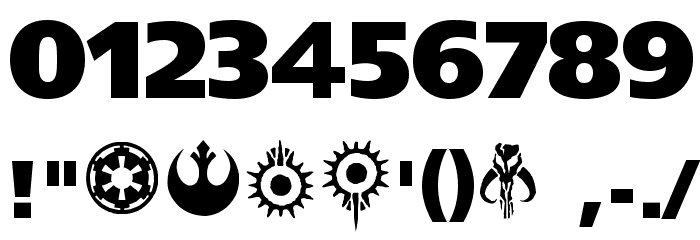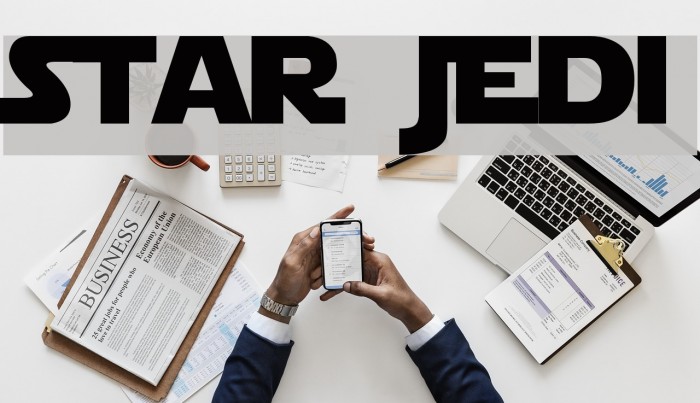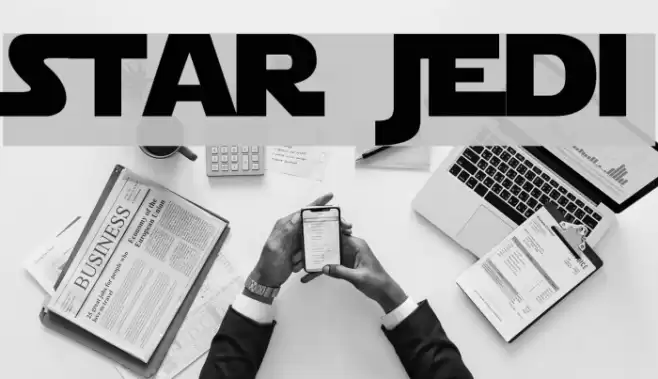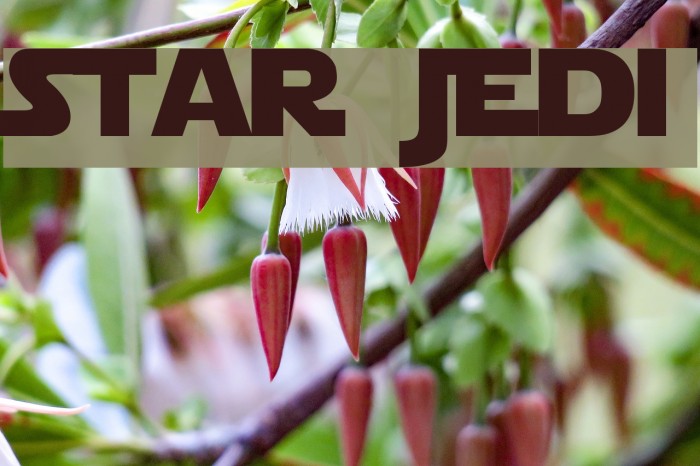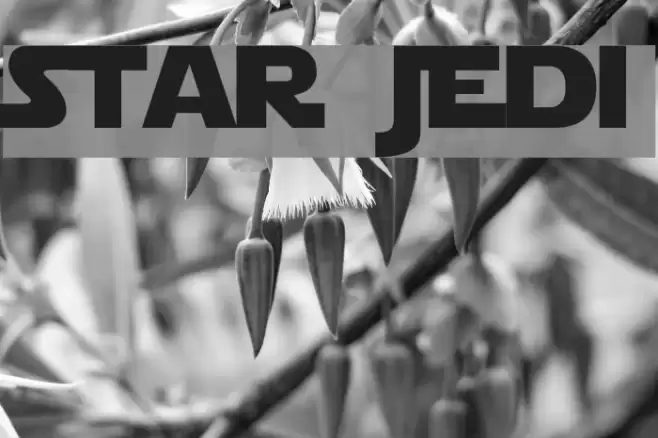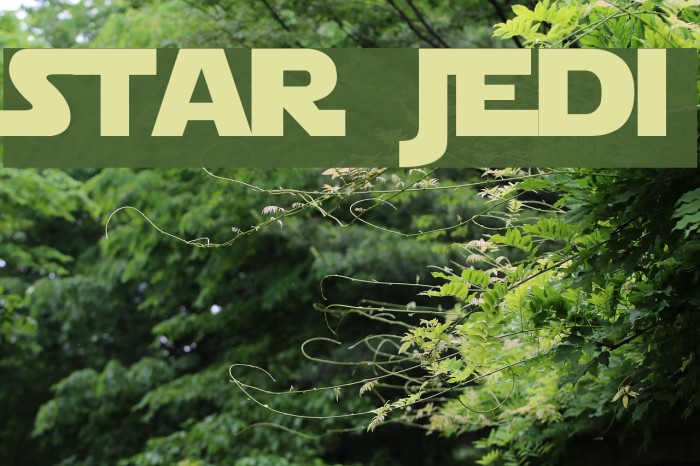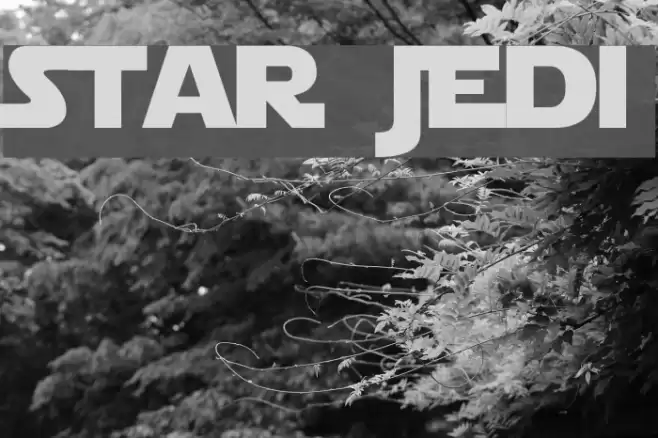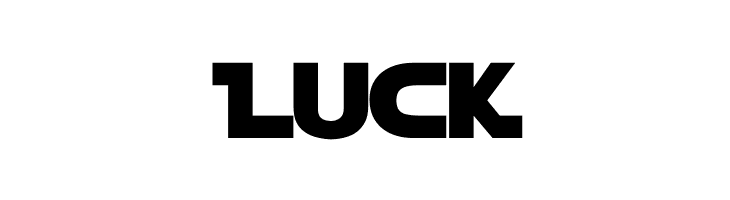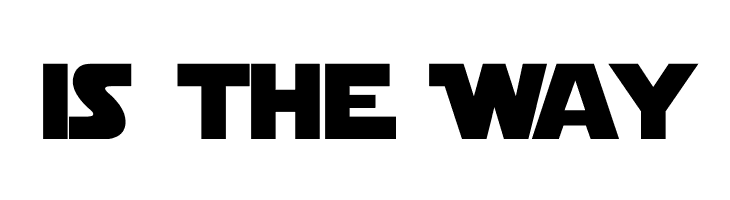
Star Jedi Font
Star Jedi Description
This font features a bold, futuristic design with sharp angles and geometric shapes, reminiscent of a science fiction aesthetic. The uppercase letters are particularly striking, with a strong presence and a sense of movement. The numbers and special characters maintain this theme, adding to the overall cohesive look. The font's style is highly decorative, making it ideal for projects that require a distinctive and eye-catching appearance. Its unique design elements make it suitable for creative and themed projects, particularly those related to science fiction or fantasy genres.
| Overall Style | Futuristic, Decorative |
| Proposed Projects | Ideal for movie posters, themed event invitations, video game graphics, and merchandise design. |